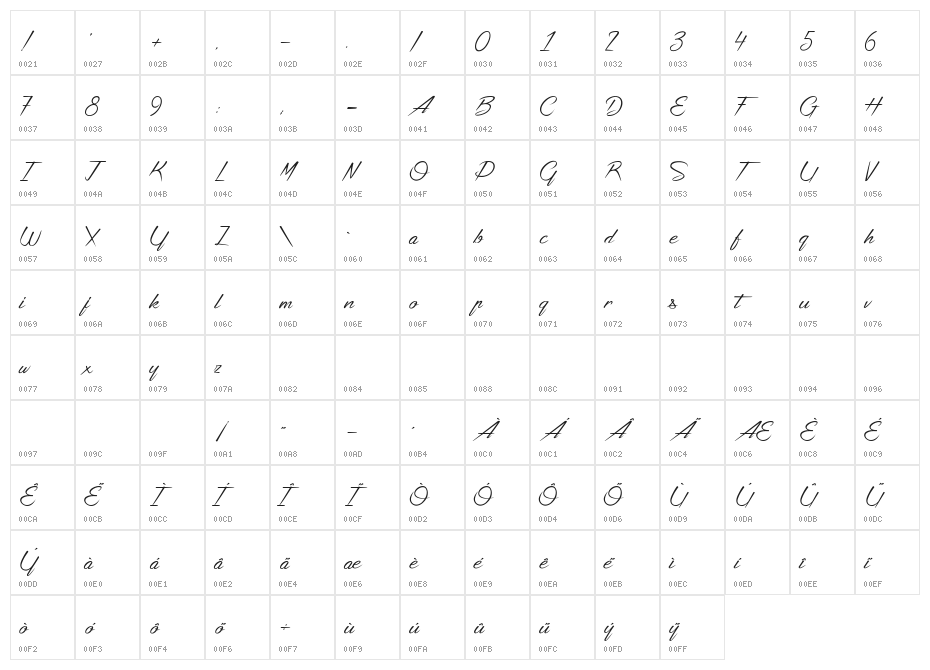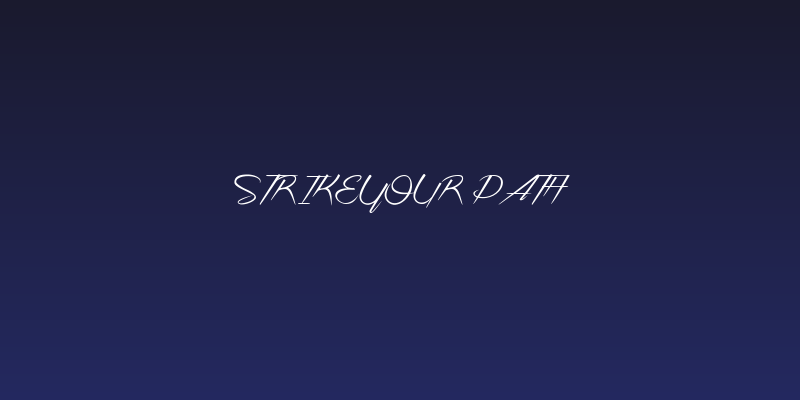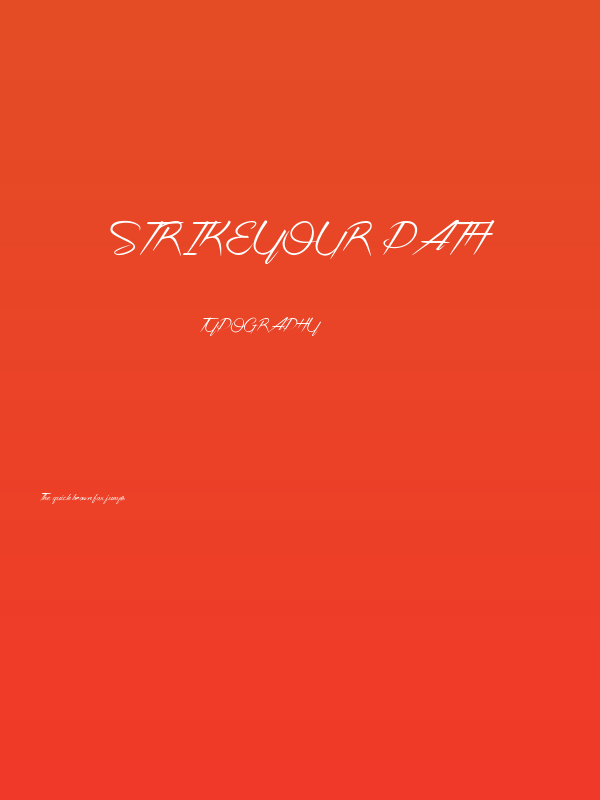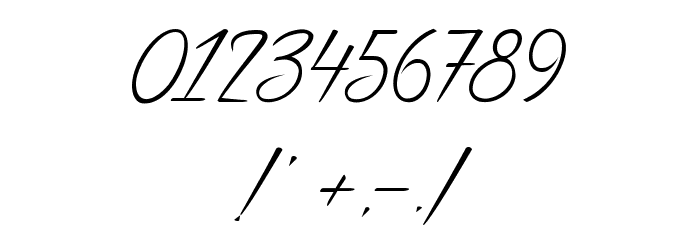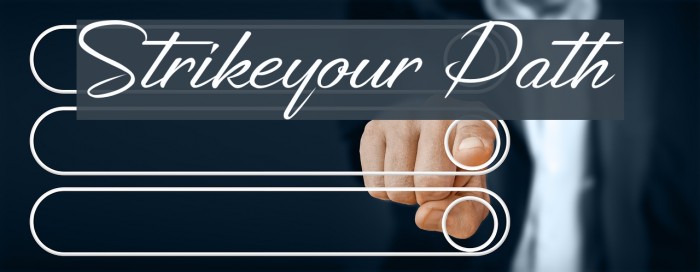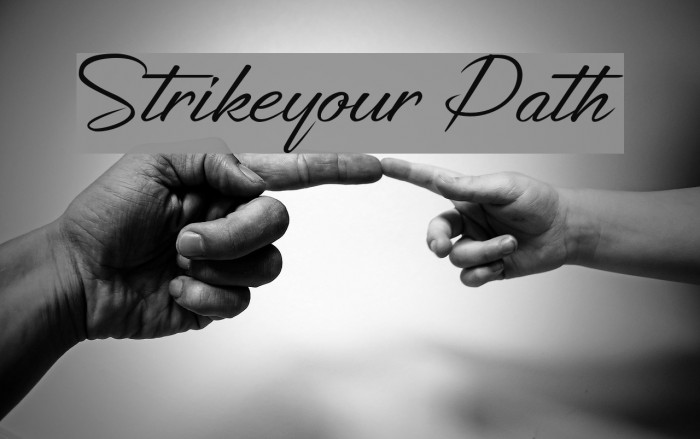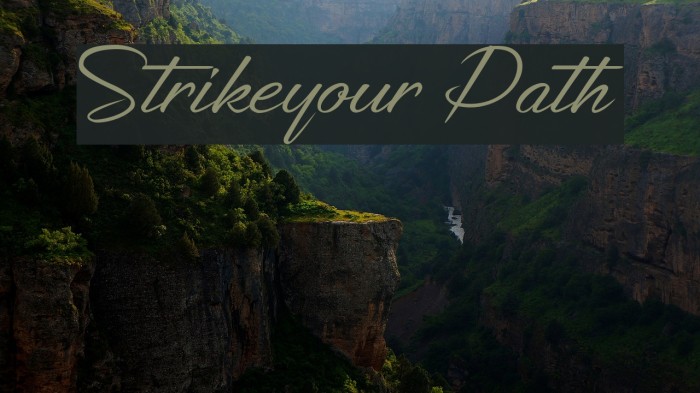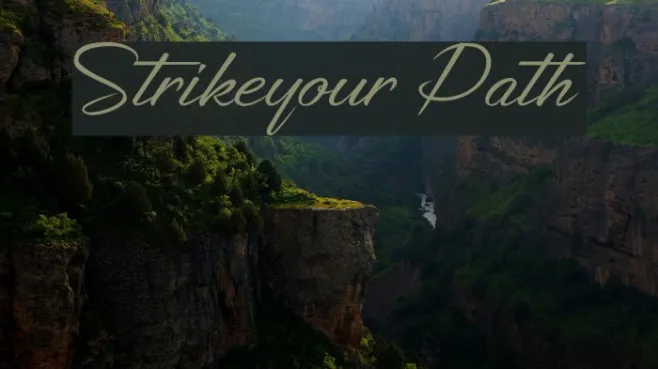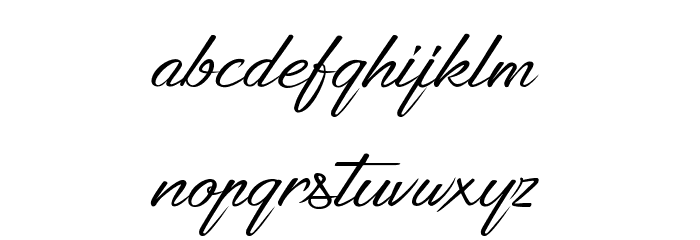
Strikeyour Path Font
Strikeyour Path Description
This font features an elegant and flowing script style, characterized by its smooth, cursive letterforms that mimic the fluidity of handwriting. The uppercase letters are slightly more embellished, with sweeping lines and graceful curves, while the lowercase letters maintain a consistent rhythm and balance. The numerals are designed to complement the overall aesthetic, with a similar slant and curvature. Special characters are integrated seamlessly, enhancing the font's versatility. The overall appearance is sophisticated and stylish, making it suitable for a variety of creative applications.